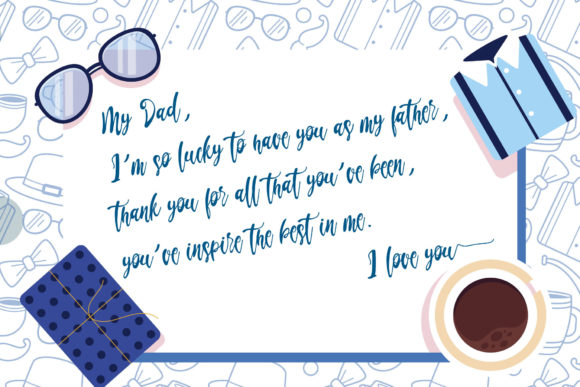
Dad Collections Font
Dad Collections is a lovely and elegant duo font (sans serif and script). It can easily be matched to an incredibly large set of projects, so add it to your creative ideas and notice how it makes them stand out!
Dad Collections is PUA encoded which means you can access all of the glyphs and swashes with ease!